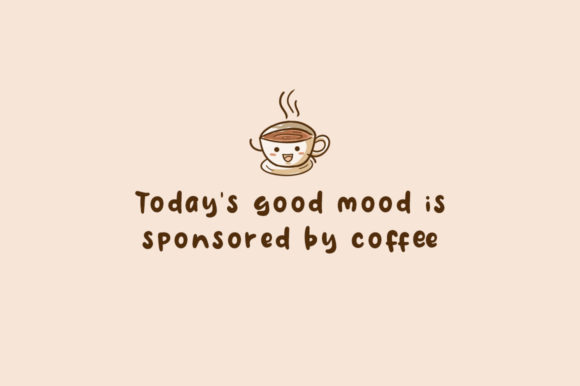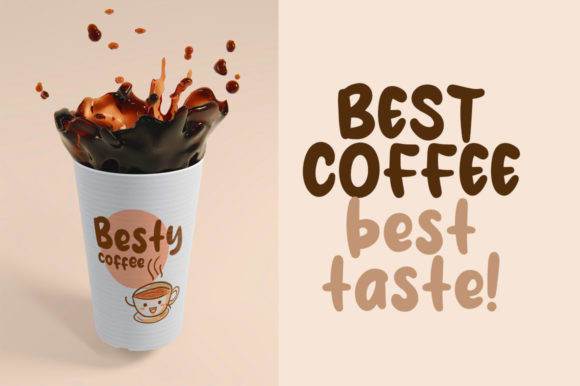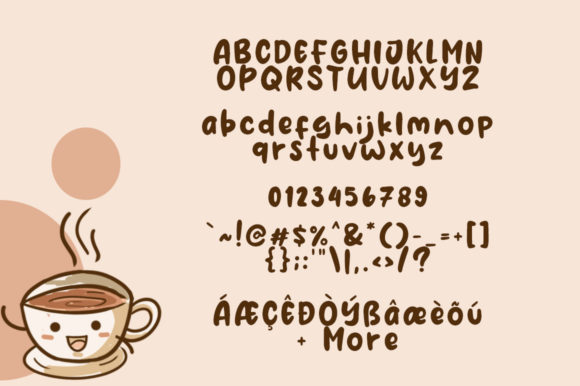
Coffee Extra Font: The Perfect Playful Touch for Your Designs
Are you looking for a font that can add a fun and cool touch to your designs? Look no further than Coffee Extra Font! This display font is perfect for cartoon-related designs, children’s games, and any creation that requires a playful and youthful vibe. In this article, we’ll dive into the features and benefits of Coffee Extra Font, and explore how you can use it to take your designs to the next level.
What is Coffee Extra Font?
Coffee Extra Font is a unique and creative display font that is designed to add a playful touch to your designs. With its fun and quirky style, this font is perfect for designers and crafters who want to create eye-catching and engaging content. Whether you’re working on a children’s book, a cartoon-related project, or a fun and playful brand identity, Coffee Extra Font is the perfect choice.
Key Features of Coffee Extra Font
- Playful and Fun Style: Coffee Extra Font has a unique and playful style that is perfect for designs that require a youthful and energetic vibe.
- Display Font: This font is specifically designed as a display font, making it perfect for headlines, titles, and other prominent text elements.
- Cartoon-Related Designs: Coffee Extra Font is perfect for cartoon-related designs, including children’s books, animations, and games.
Benefits of Using Coffee Extra Font
So why should you choose Coffee Extra Font for your designs? Here are just a few benefits of using this fun and playful font:
- Adds a Playful Touch: Coffee Extra Font adds a playful and fun touch to your designs, making them more engaging and eye-catching.
- Perfect for Children’s Designs: This font is perfect for children’s books, games, and other designs that require a youthful and energetic vibe.
- Unique and Creative: Coffee Extra Font is a unique and creative font that will help your designs stand out from the crowd.
- Easy to Read: Despite its playful style, Coffee Extra Font is easy to read, making it perfect for designs that require a clear and concise message.
How to Use Coffee Extra Font
Using Coffee Extra Font is easy! Here are a few tips for incorporating this font into your designs:
- Use it as a Display Font: Coffee Extra Font is specifically designed as a display font, so use it for headlines, titles, and other prominent text elements.
- Pair it with Other Fonts: Experiment with pairing Coffee Extra Font with other fonts to create a unique and creative look.
- Use it for Children’s Designs: This font is perfect for children’s books, games, and other designs that require a playful and youthful vibe.
Here are a few tips and tricks for designers and crafters who want to get the most out of Coffee Extra Font:
- Experiment with Colors: Coffee Extra Font looks great in bright and bold colors, so don’t be afraid to experiment with different color schemes.
- Use it for Packaging Design: This font is perfect for packaging design, especially for products that are geared towards children.
- Create a Brand Identity: Use Coffee Extra Font to create a fun and playful brand identity that will help your business stand out from the crowd.
| Font Name | Coffee Extra Font |
| Author | si.jalembe |
In conclusion, Coffee Extra Font is a fun and cool display font that is perfect for designers and crafters who want to add a playful touch to their designs. With its unique and creative style, this font is perfect for cartoon-related designs, children’s games, and any creation that requires a youthful and energetic vibe. So why not give Coffee Extra Font a try and see how it can take your designs to the next level?